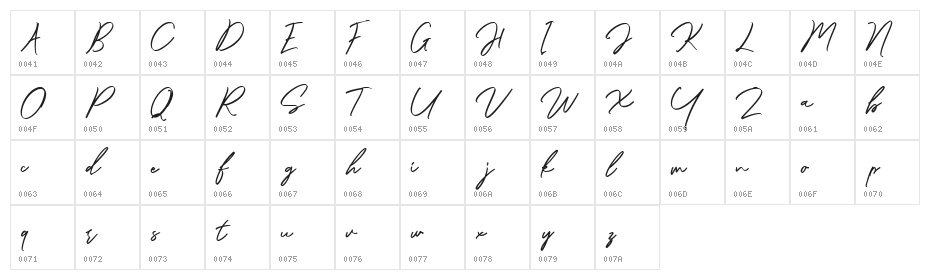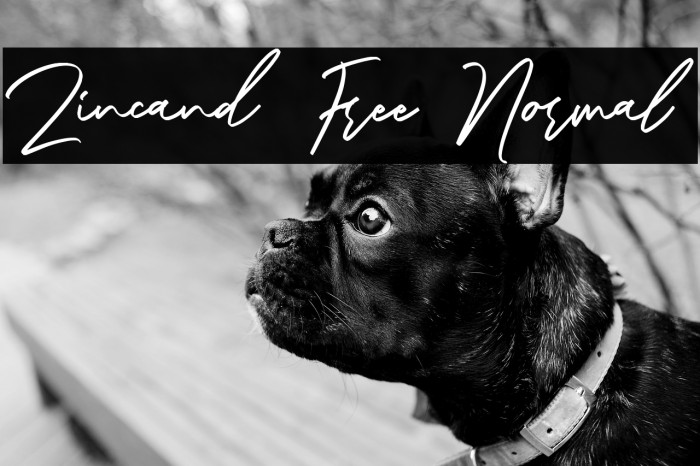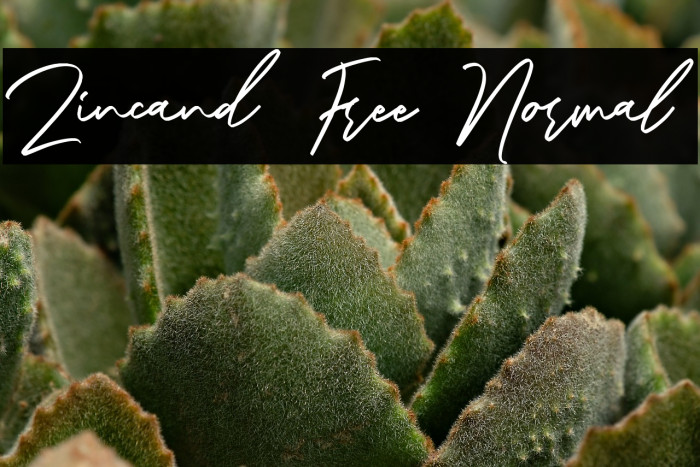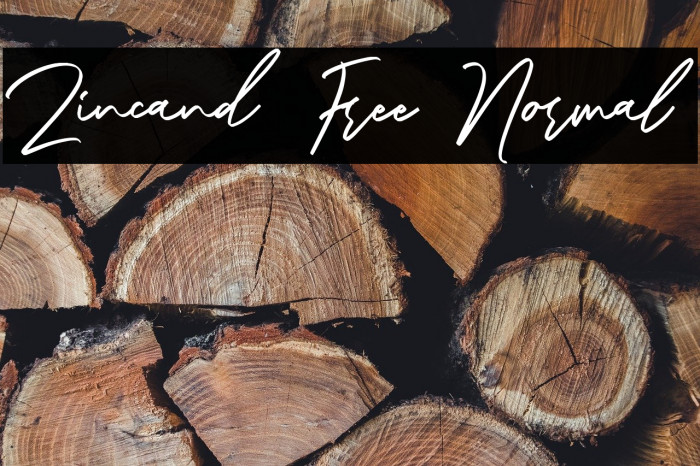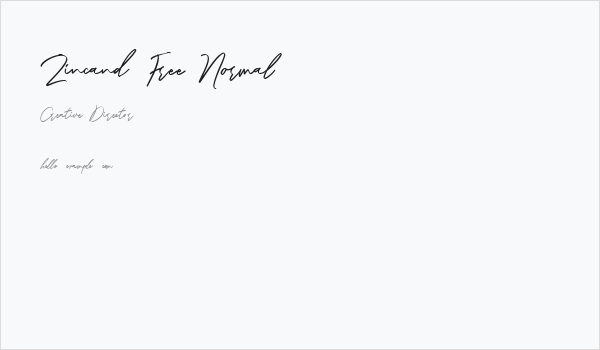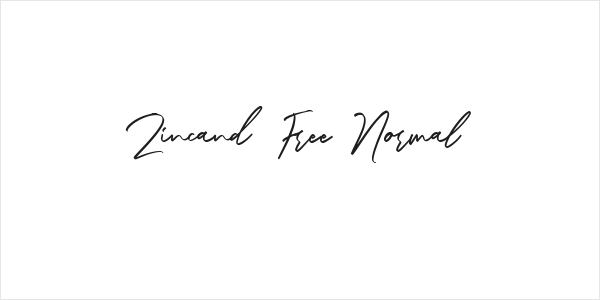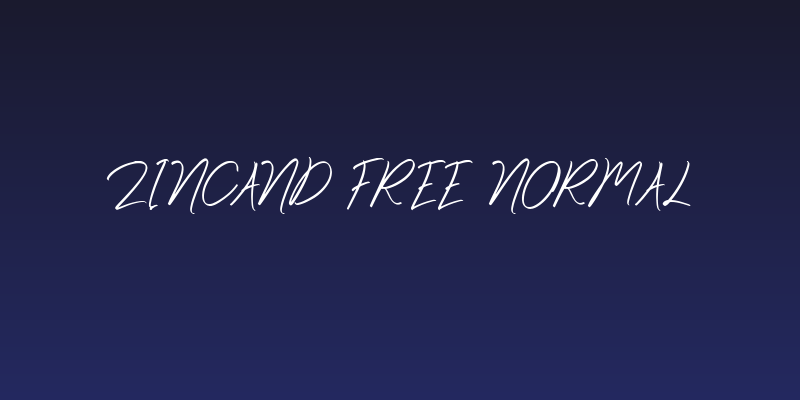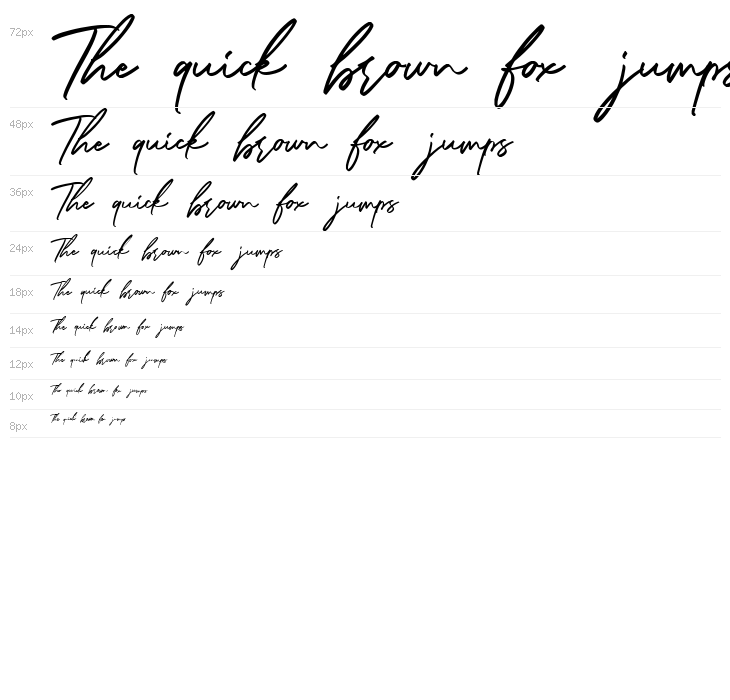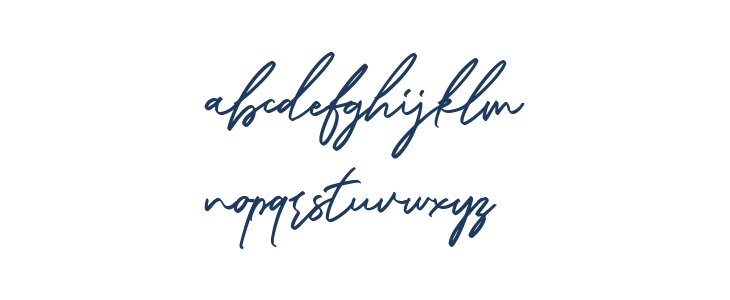
Zincand Free Normal Font
Zincand Free Normal Description
This font features a dynamic and fluid script style, characterized by its elegant and flowing letterforms. The uppercase letters exhibit a graceful, slightly slanted appearance with smooth curves and delicate strokes. The lowercase letters maintain a consistent style, enhancing the overall cohesiveness of the font. The characters are well-spaced, allowing for readability while retaining a handwritten charm. This font's unique style makes it suitable for creative and expressive design projects, where a personal touch is desired.